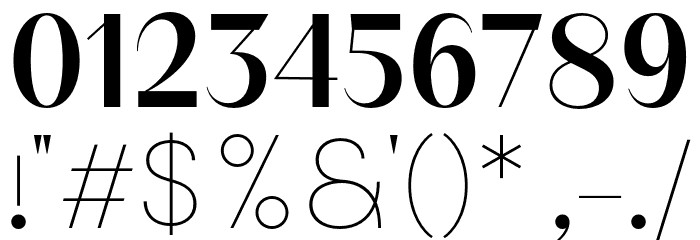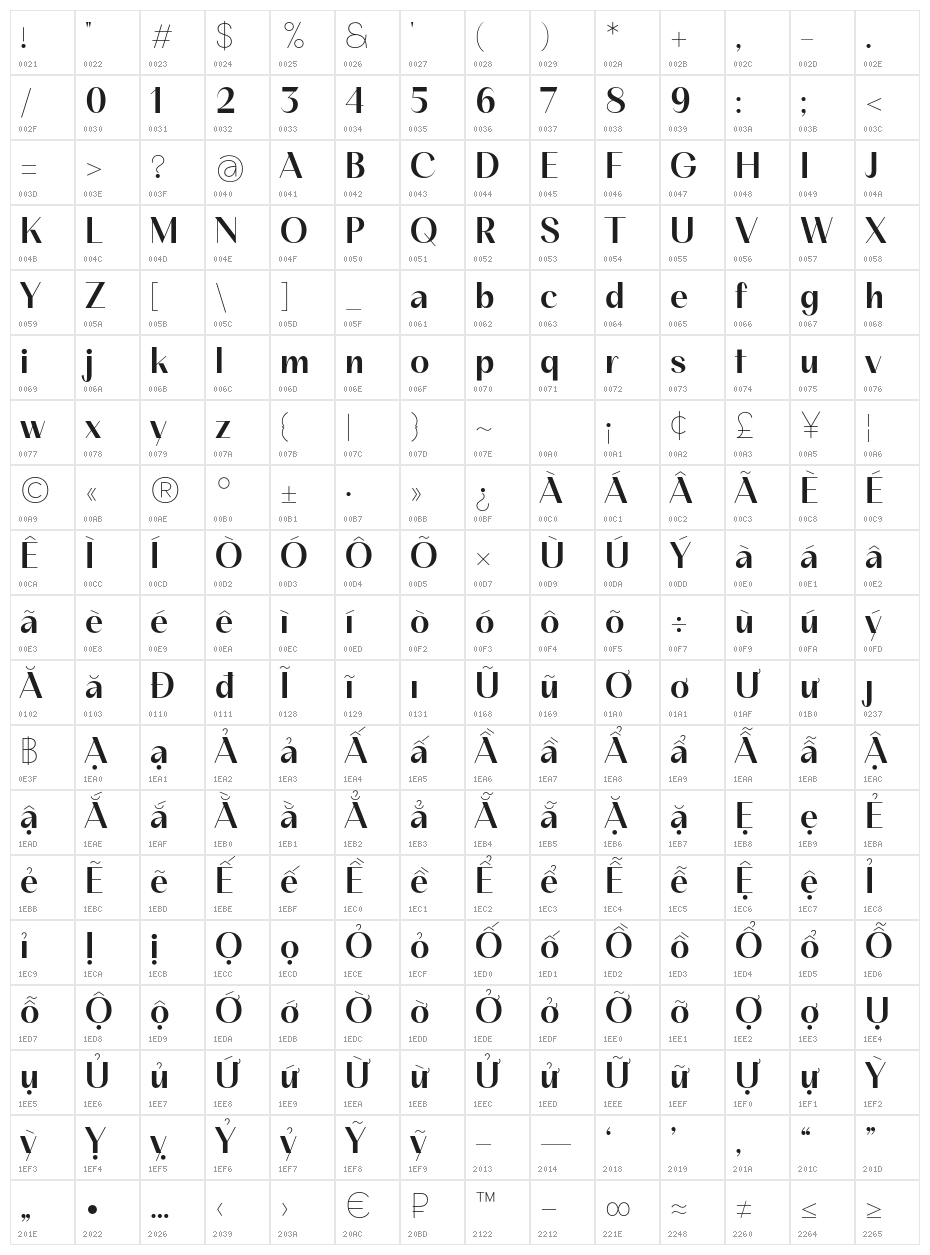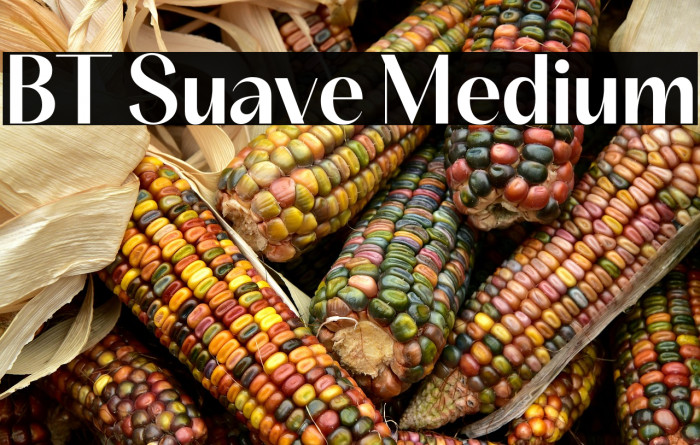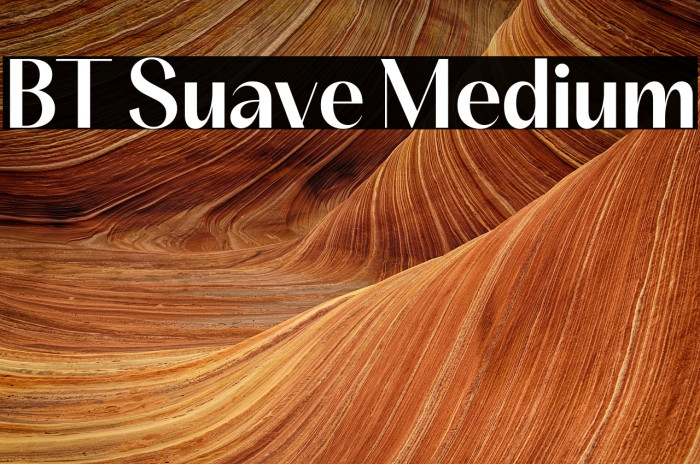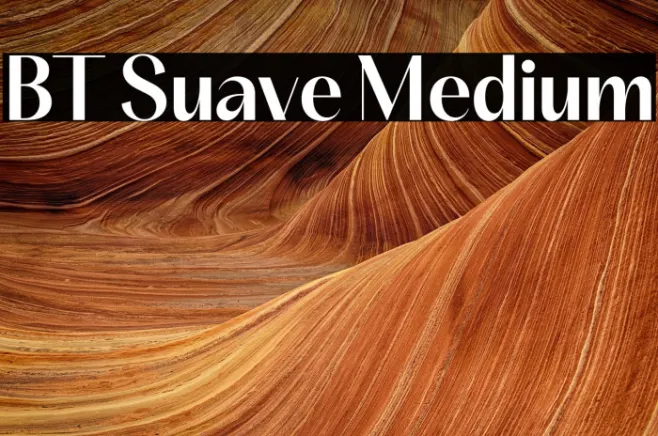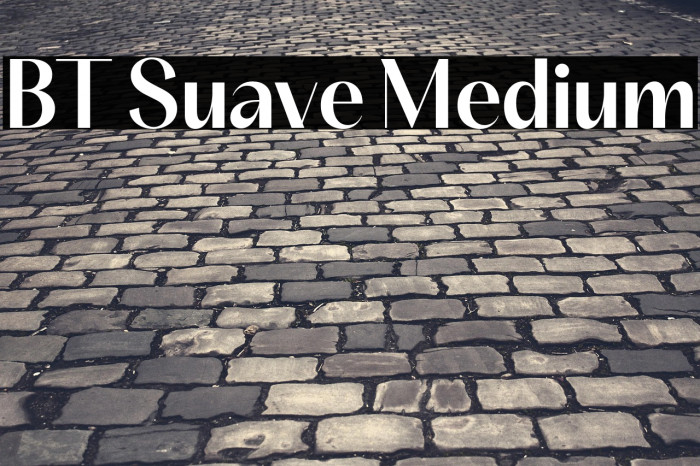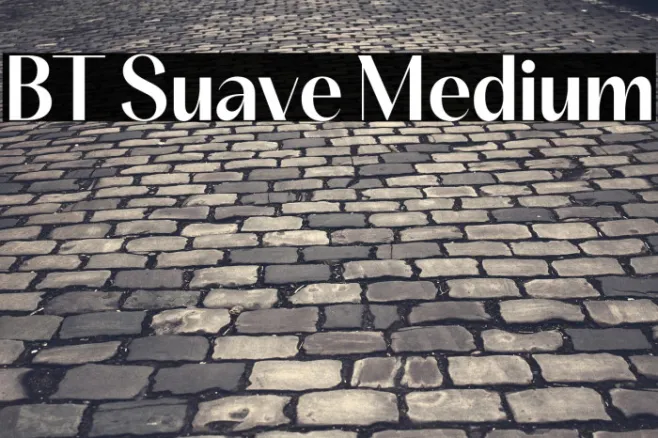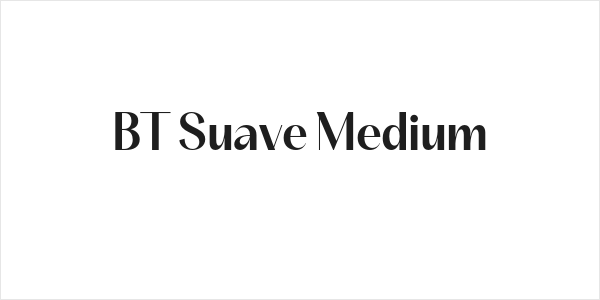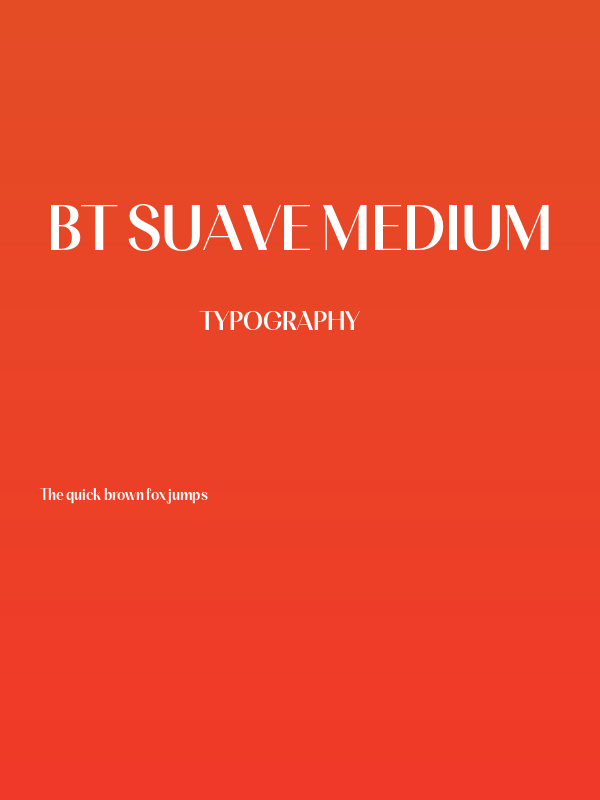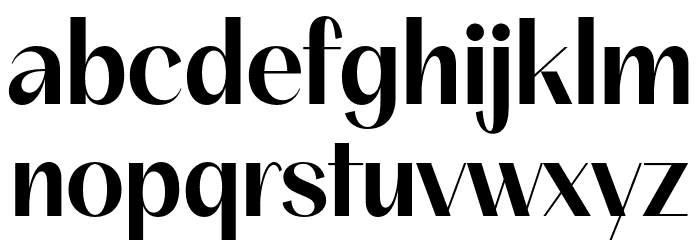
BT Suave Medium Font
BT Suave Medium Description
This font presents a sophisticated and modern aesthetic, characterized by its elegant and sleek letterforms. The uppercase letters exhibit a refined balance between thick and thin strokes, creating a high contrast that adds a touch of drama and sophistication. The lowercase letters maintain this contrast, with smooth curves and a slightly condensed appearance that enhances readability. The numerals are bold and clear, ensuring they stand out in any design. Special characters are thoughtfully designed, maintaining the font's overall elegance and style.
| Use Case | Headlines, Logos, Editorial design |
| Proposed Projects | Ideal for luxury branding, editorial design, fashion magazines, and high-end product packaging. |